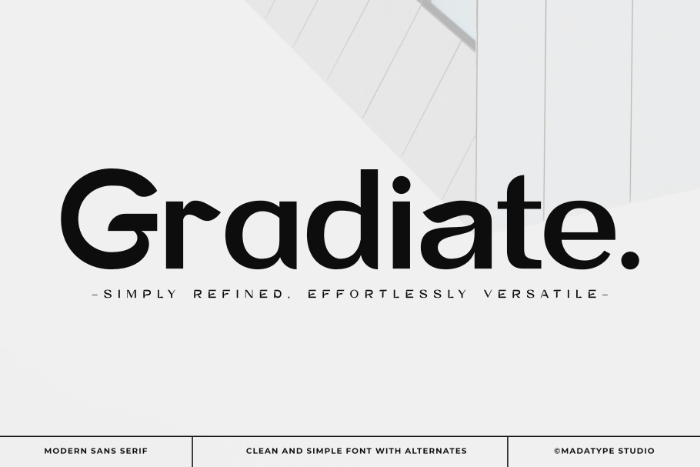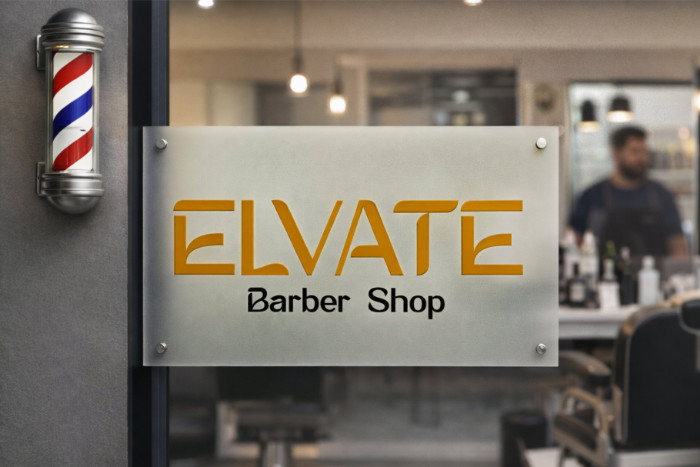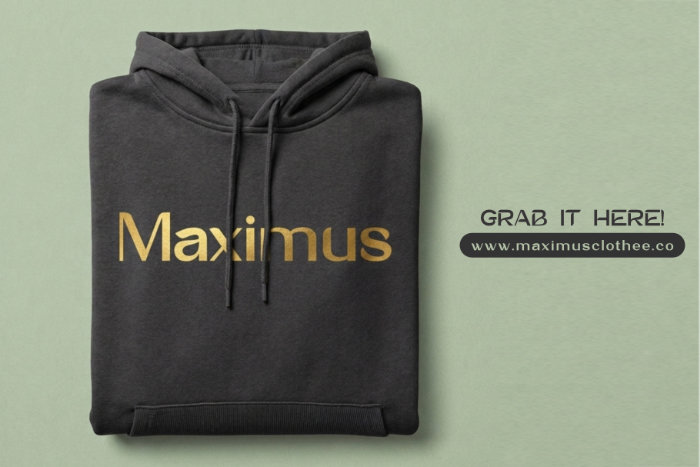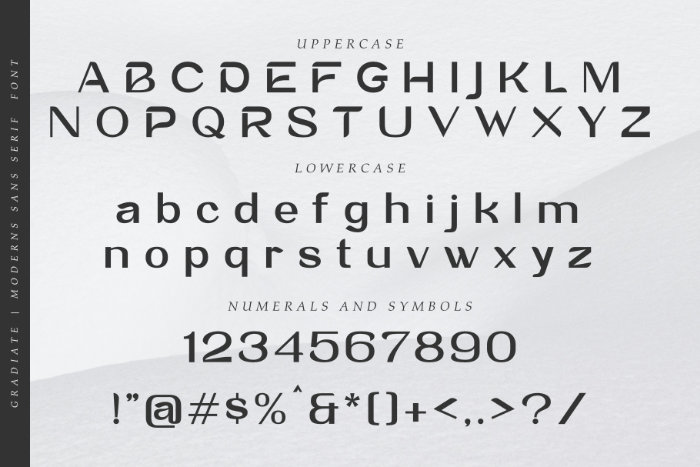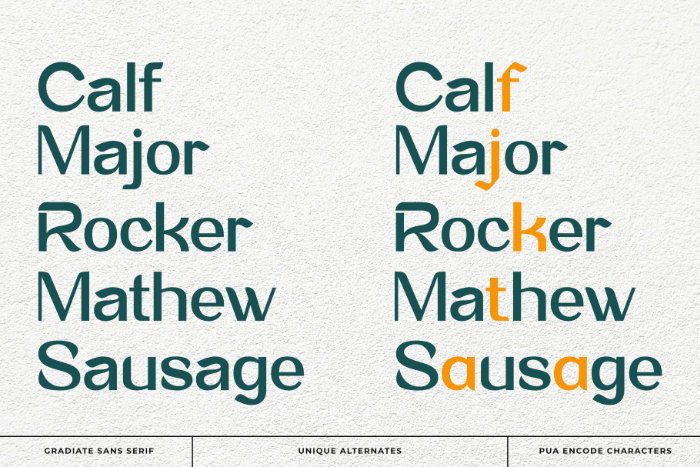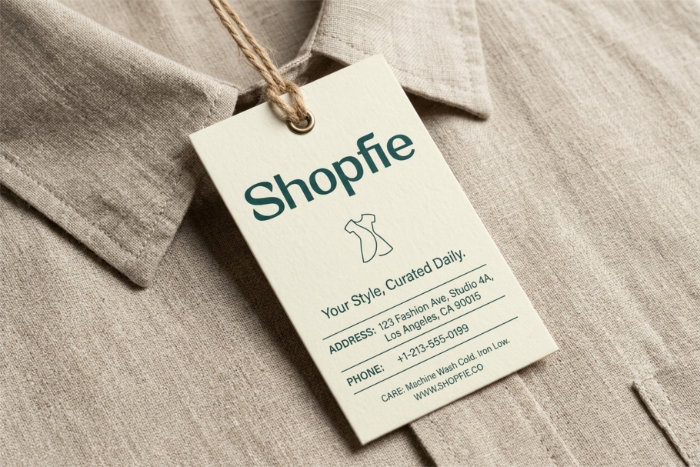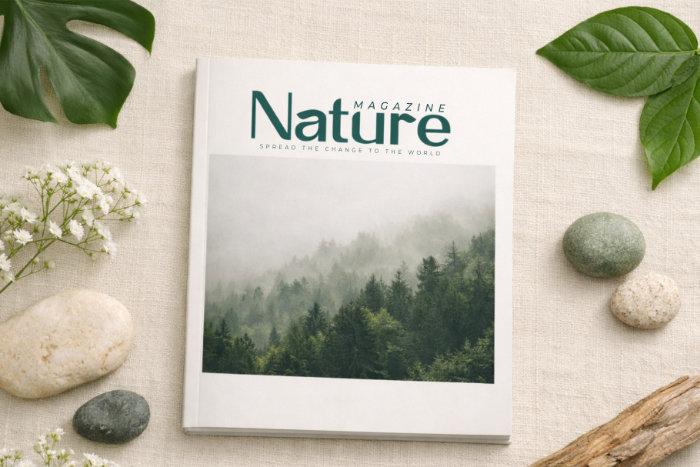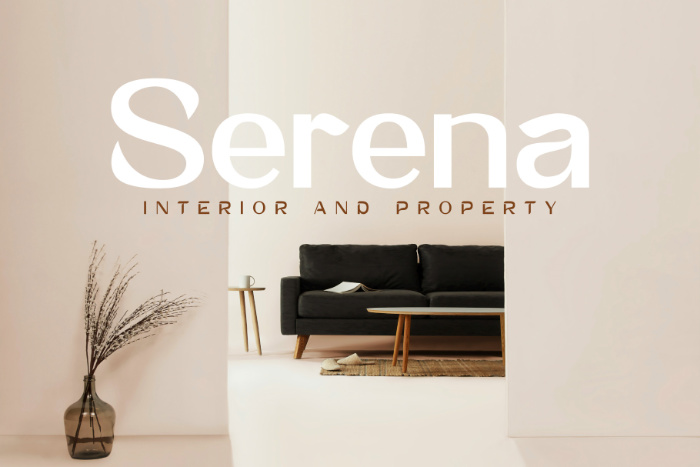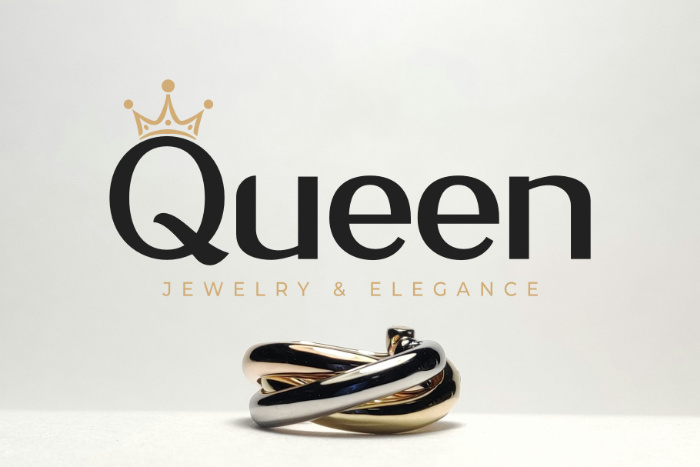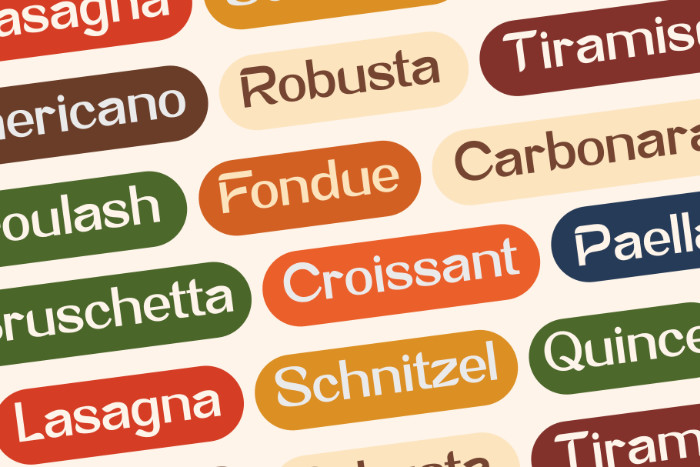
Introducing Gradiate—a simple yet sophisticated sans-serif font that brings a breath of fresh air to contemporary typography. Built with smooth, balanced geometry and clean curves, it offers a flawless reading experience across both print and digital mediums.
What sets Gradiate apart is its versatile collection of stylistic alternates. With just a few clicks, you can swap out standard characters to add a distinct creative flair to your headlines. Whether you are crafting a high-end corporate identity, designing minimalist packaging, or building a striking web layout, Gradiate adapts beautifully to unlock your brand’s full potential.
- Alternates & Ligatures
- PUA Encoded Characters
- Multilingual Support